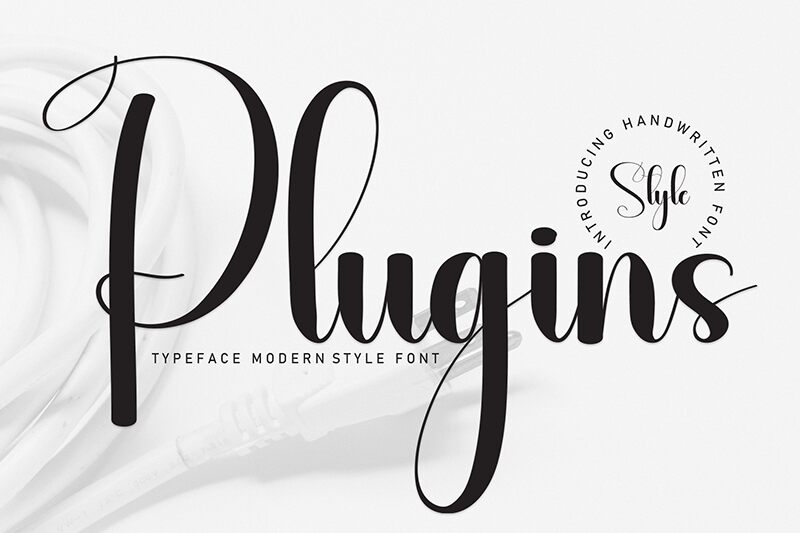
Plugins
Plugins font by Andi Moz is a free calligraphy font that captures an elegant mood with every word. This script, modern typeface works like magic making even the simplest words luxurious and captivating. Use it in your artworks to enjoy a harmonious balance between beauty and legibility.
Luxury brands, boutique shops, magazines and blogs are all excellent opportunities to use Plugins. It will effortlessly maintain the same brilliance in website design, business cards, and packaging. Its smooth cursive lines also make it an obvious choice for signatures in logos or inside documents like invitations.